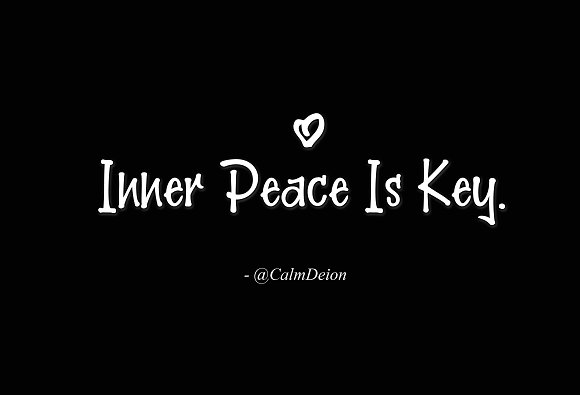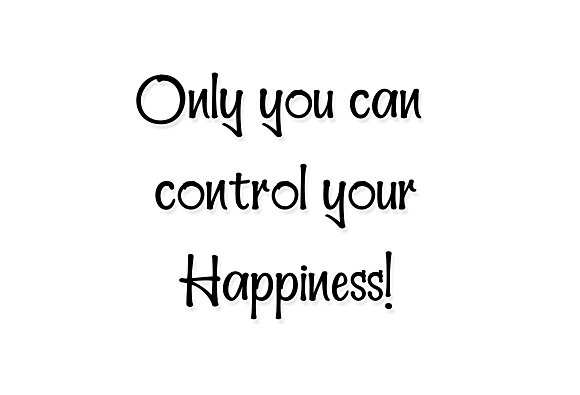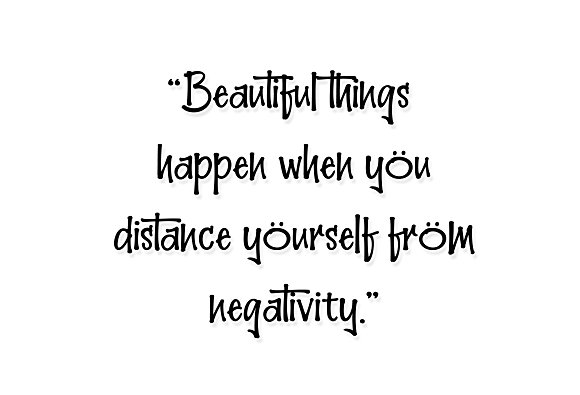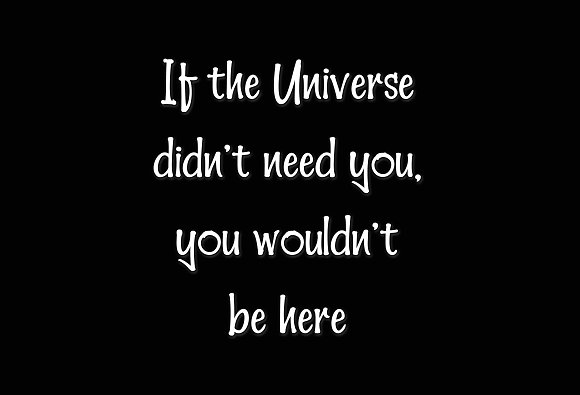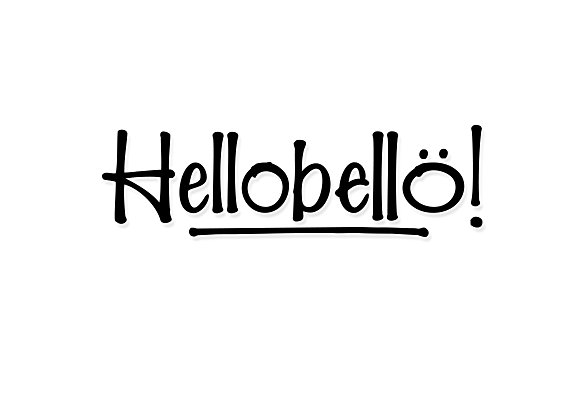
Hellobello Fonts
Hellobello! character ideas for logos, name tag, handwritten quotes, product packaging, merchandise, social media, greeting cards and many more.